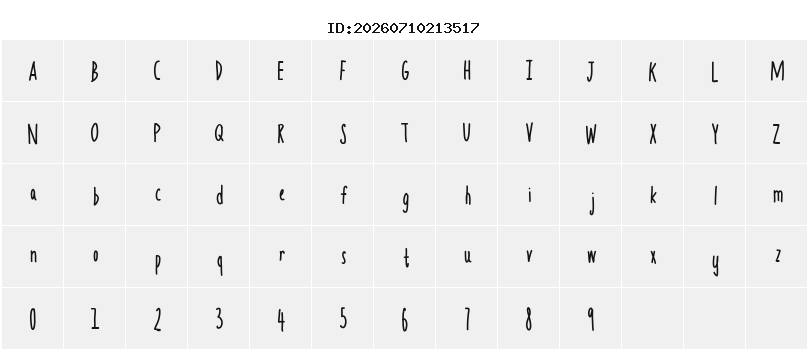
handkerchief Preview
• Font Name: handkerchief
• Full Font Name: handkerchief
• PostScript Name: handkerchief
• Designer: Joe Chau
• Manufacturer: Joe Chau
About handkerchief.ttf
handkerchief.ttf is a modern, elegant sans-serif font designed for ultimate readability and visual harmony. Perfect for branding, headlines, web design, and print materials.